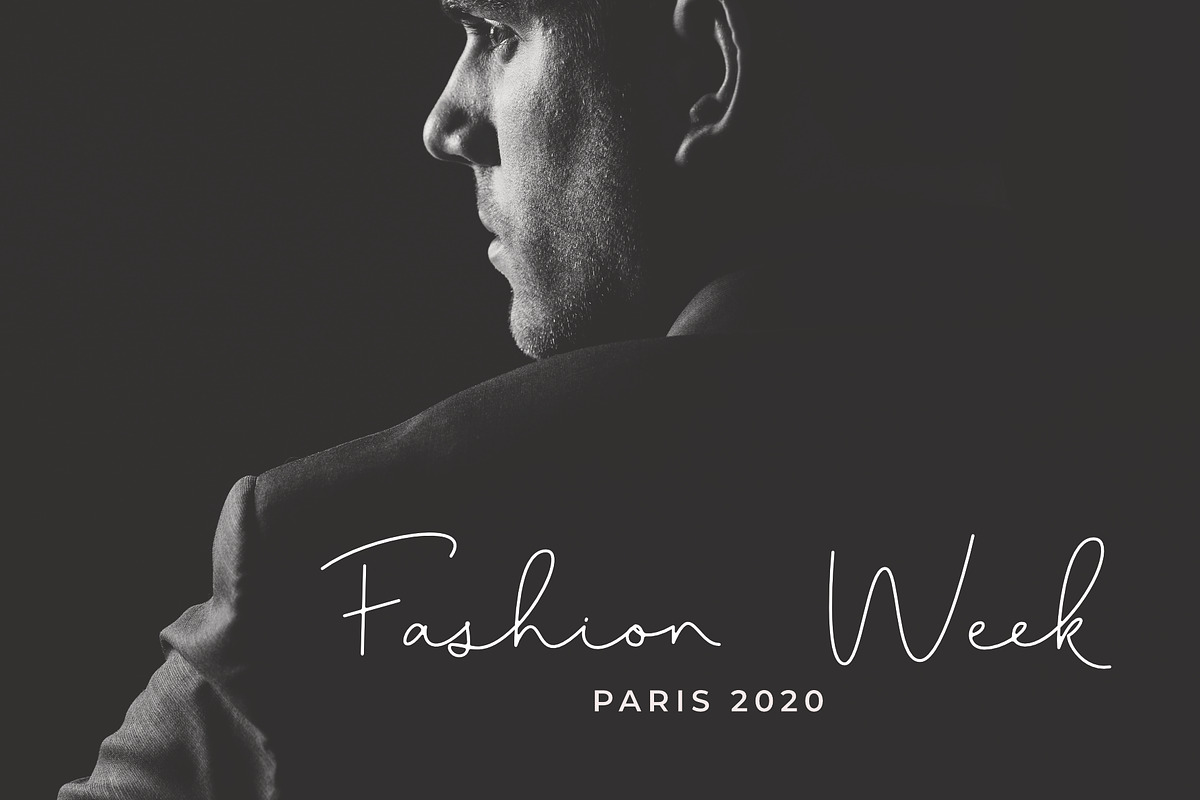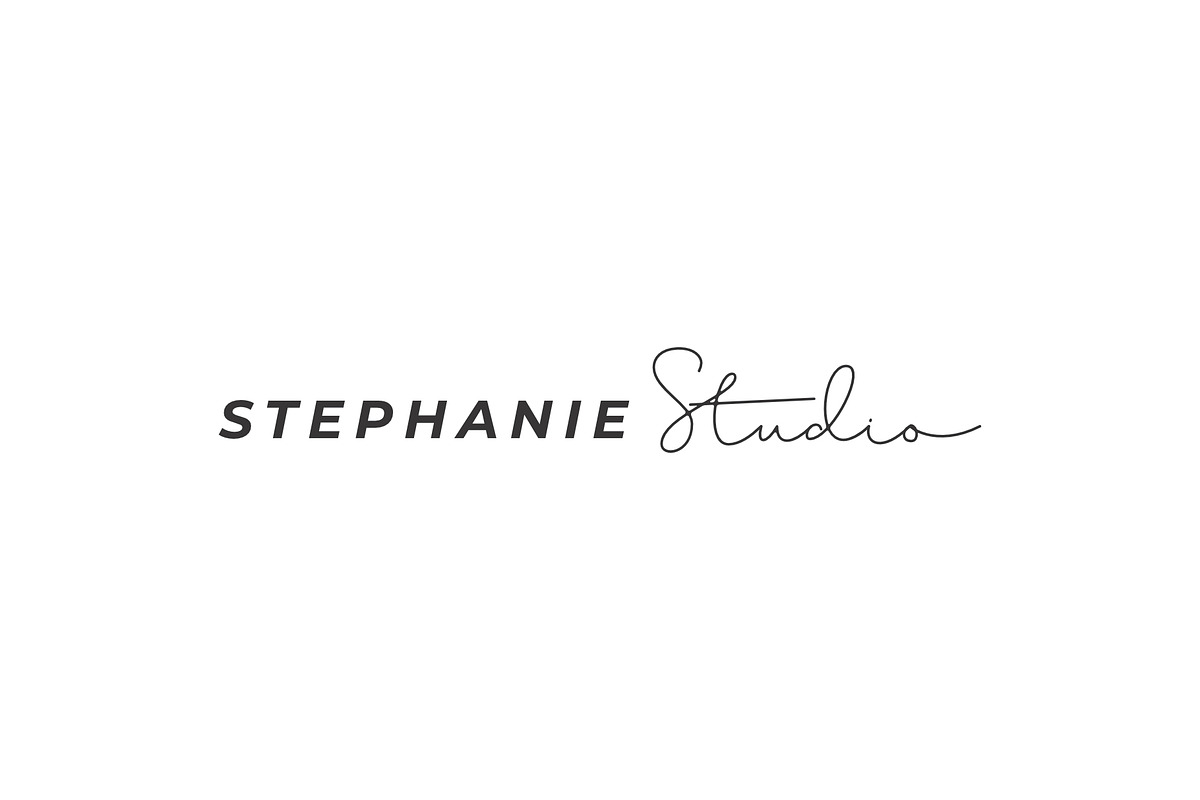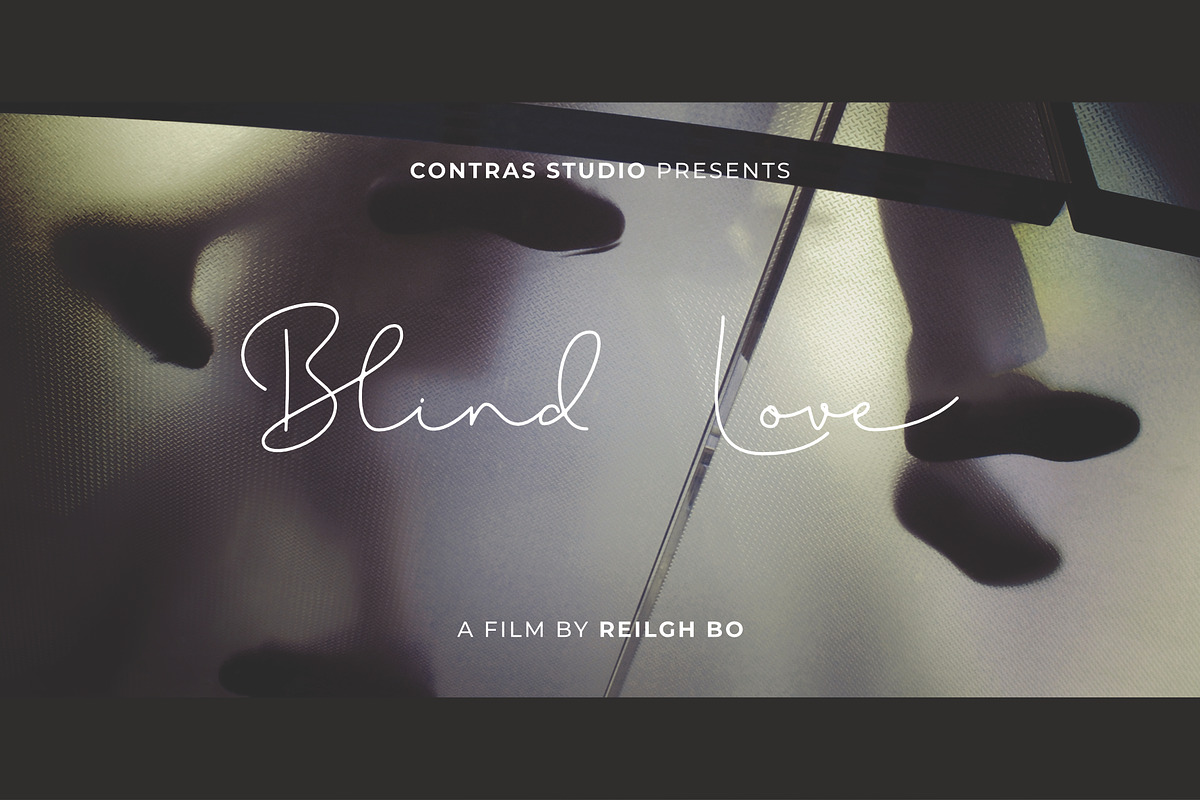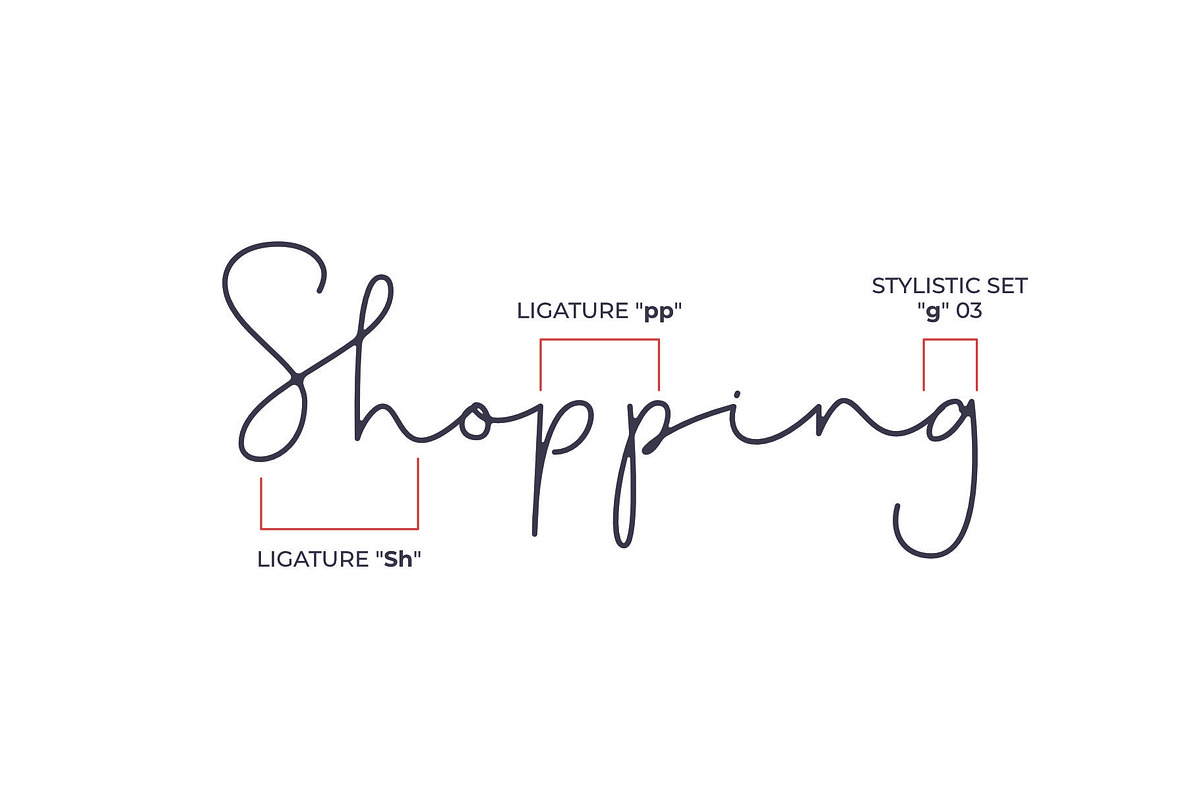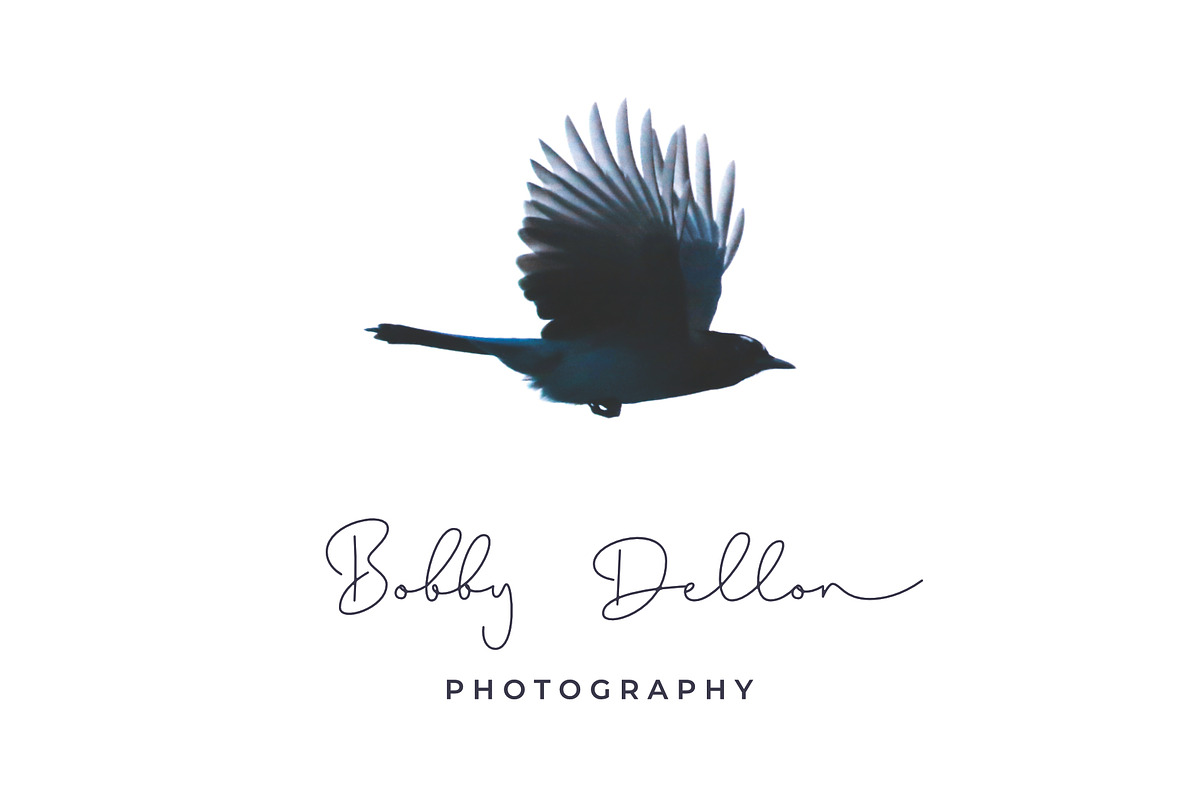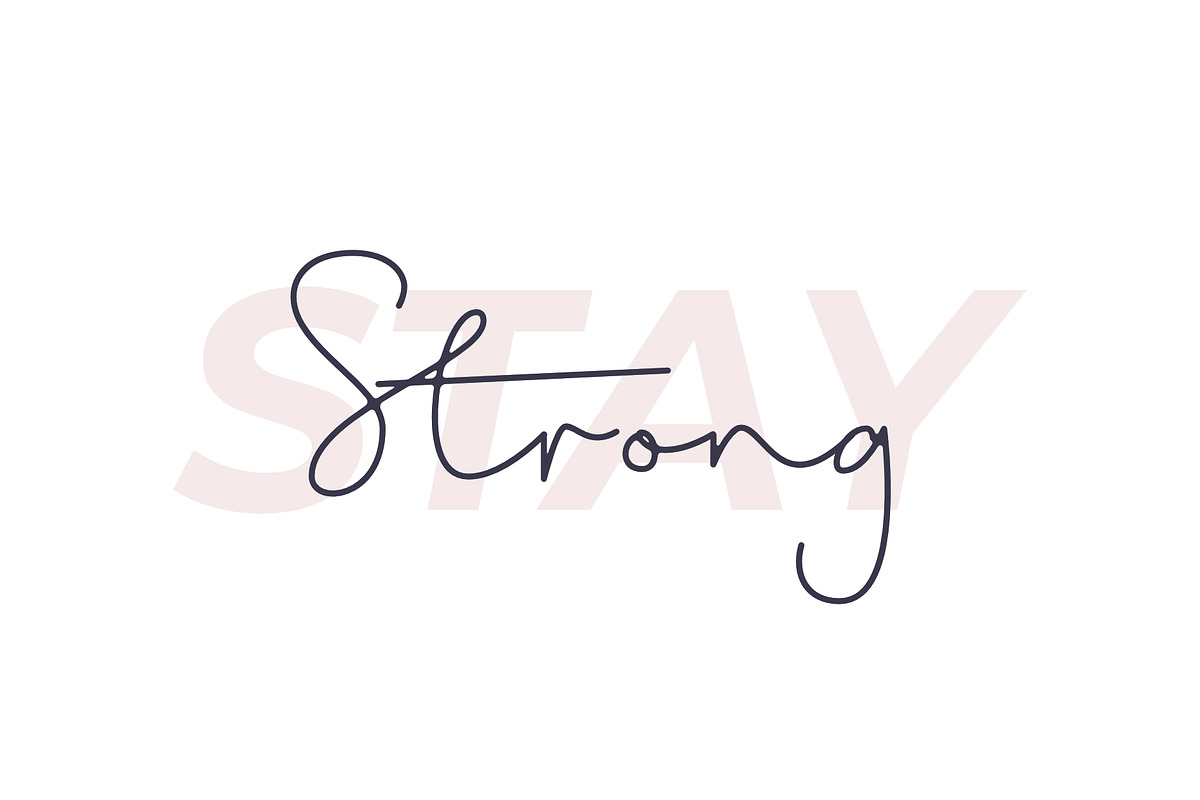
Shopping Font
Introducing the new Shopping script font - A fashionable and super-chilled new handwriting font script :)
Shopping script font was created to look as close to a natural handwritten script as possible by including over 30 ligatures, and a full set of lowercase alternates.
With built in Opentype features, this script comes to life as if you are writing it yourself.
Why Shopping Font is worth a look
Shopping Font by Andika Fez fits naturally into Branding, posters, packaging, typography.